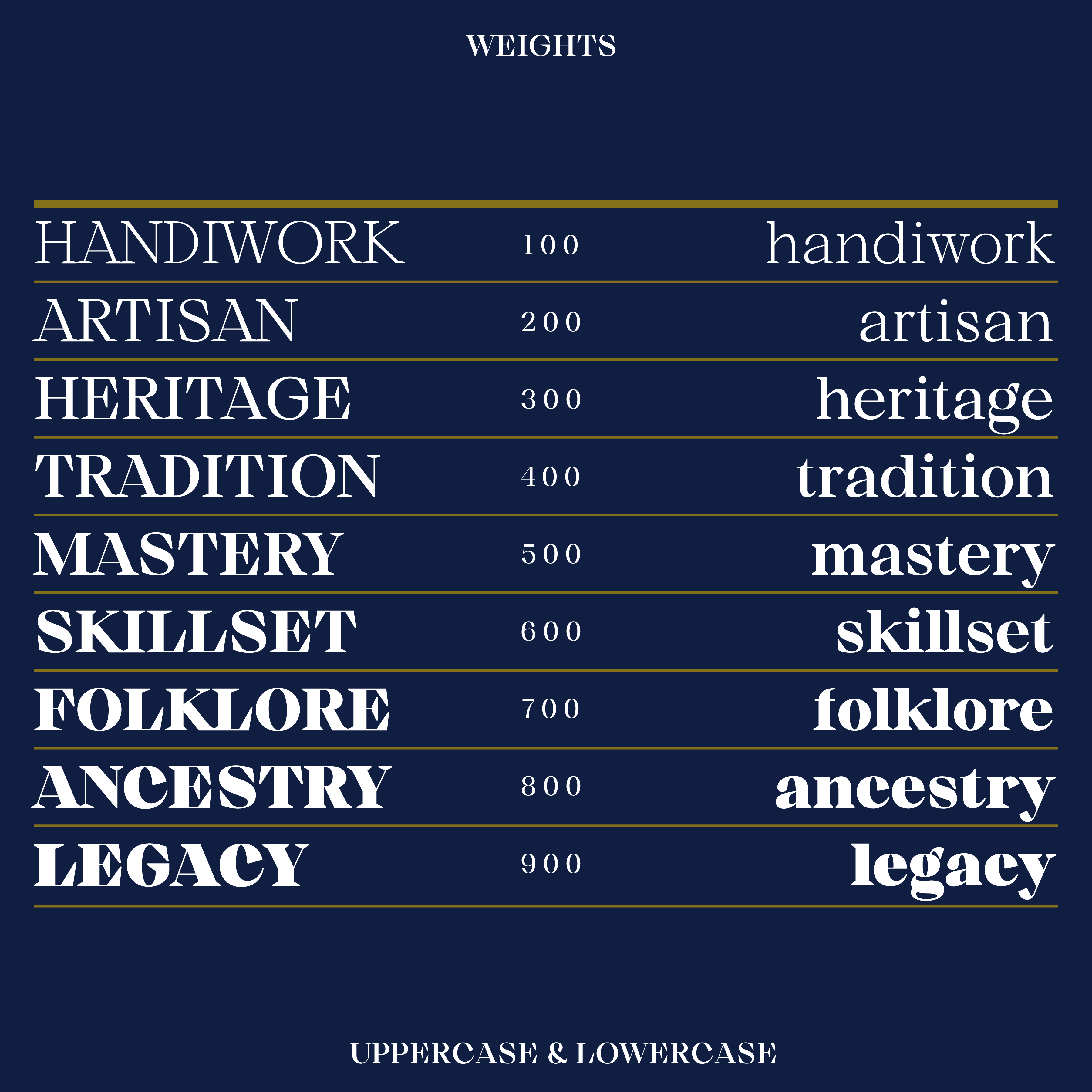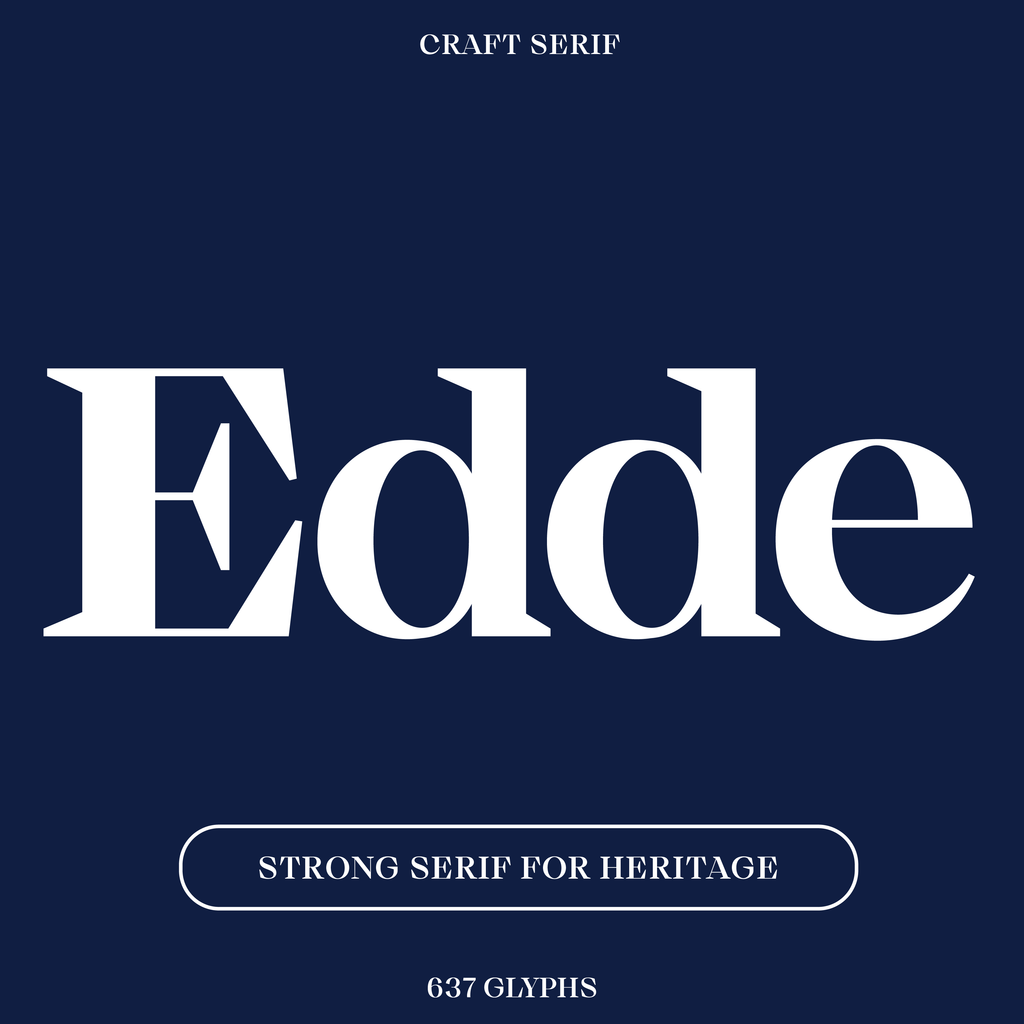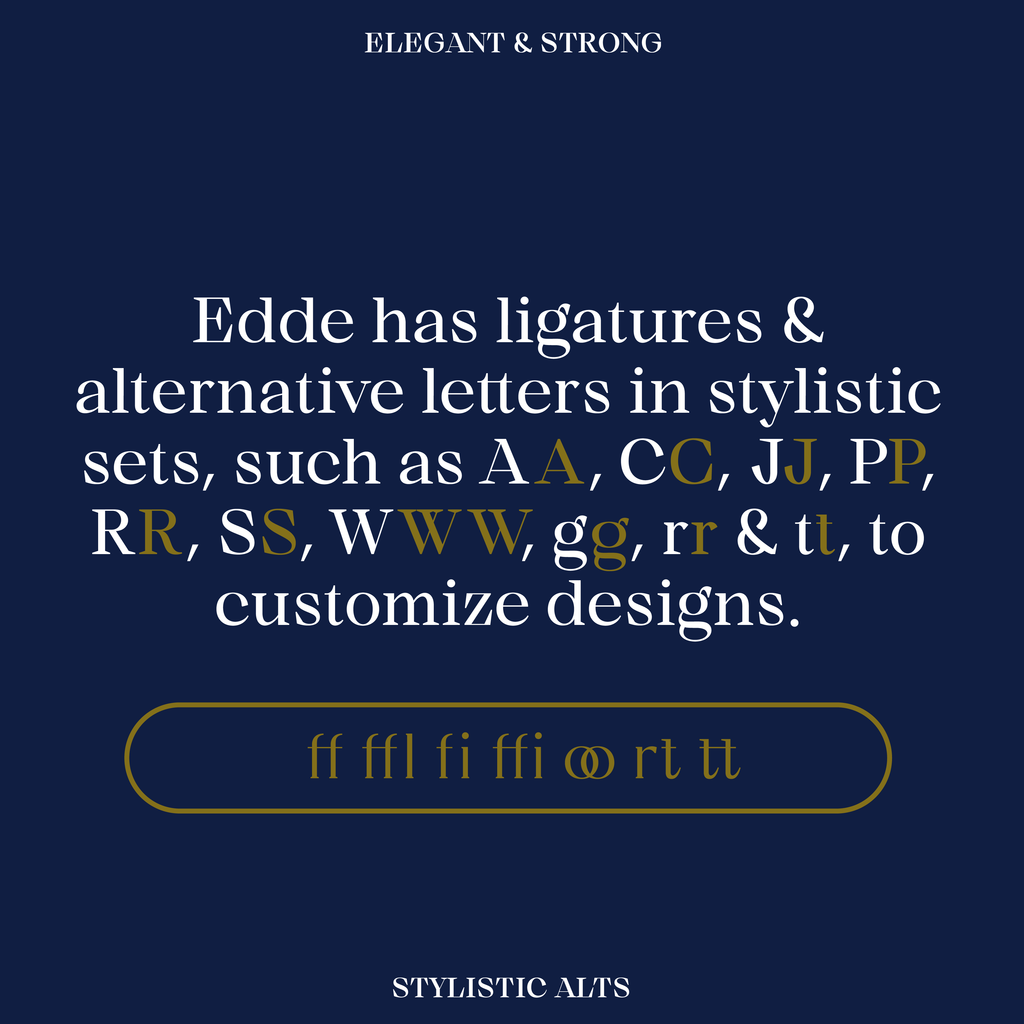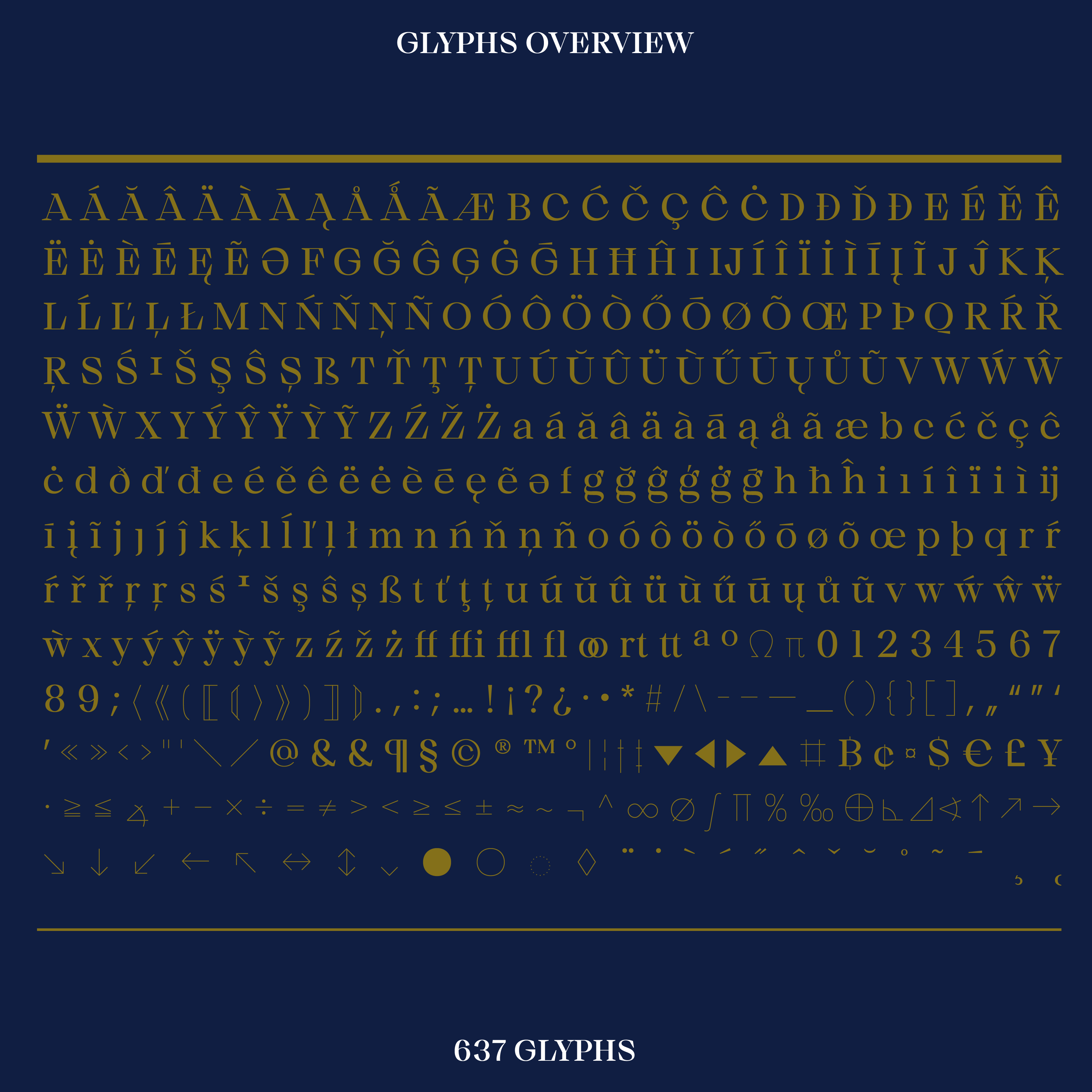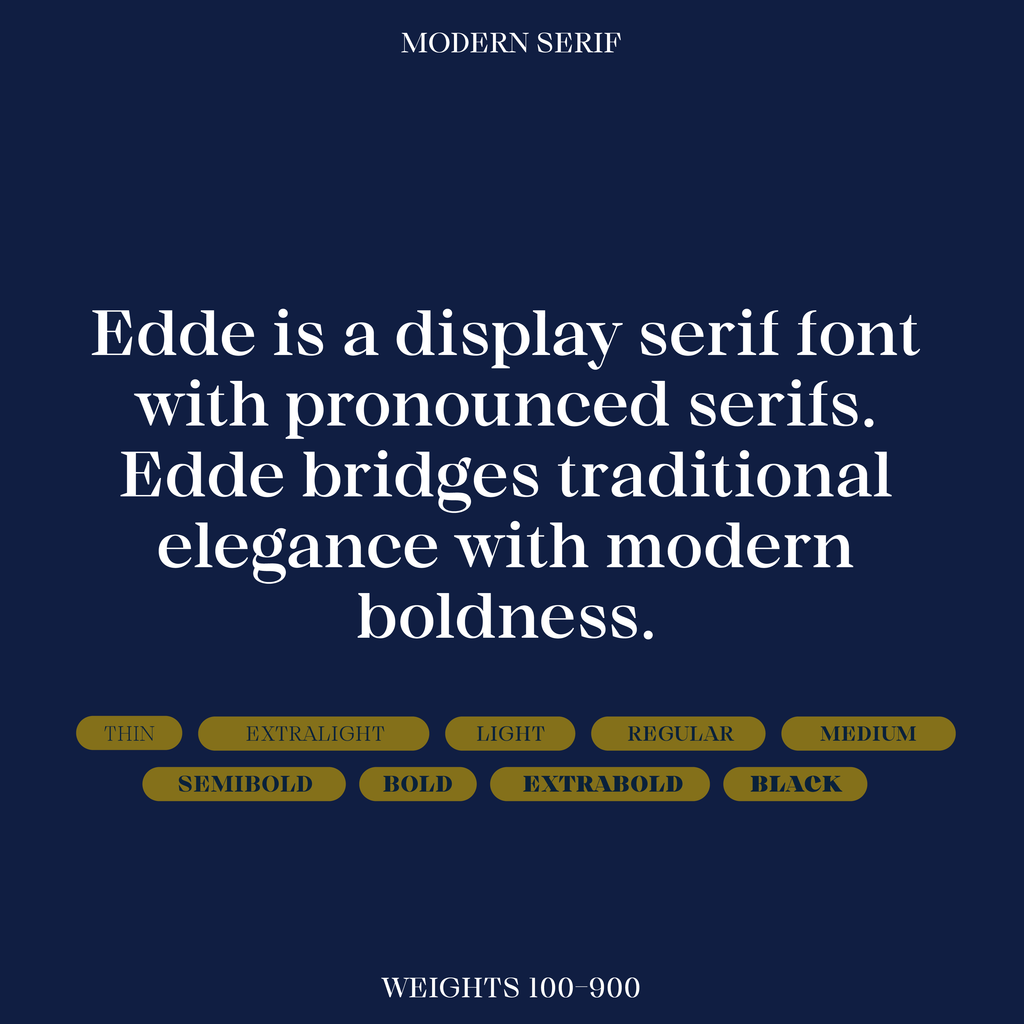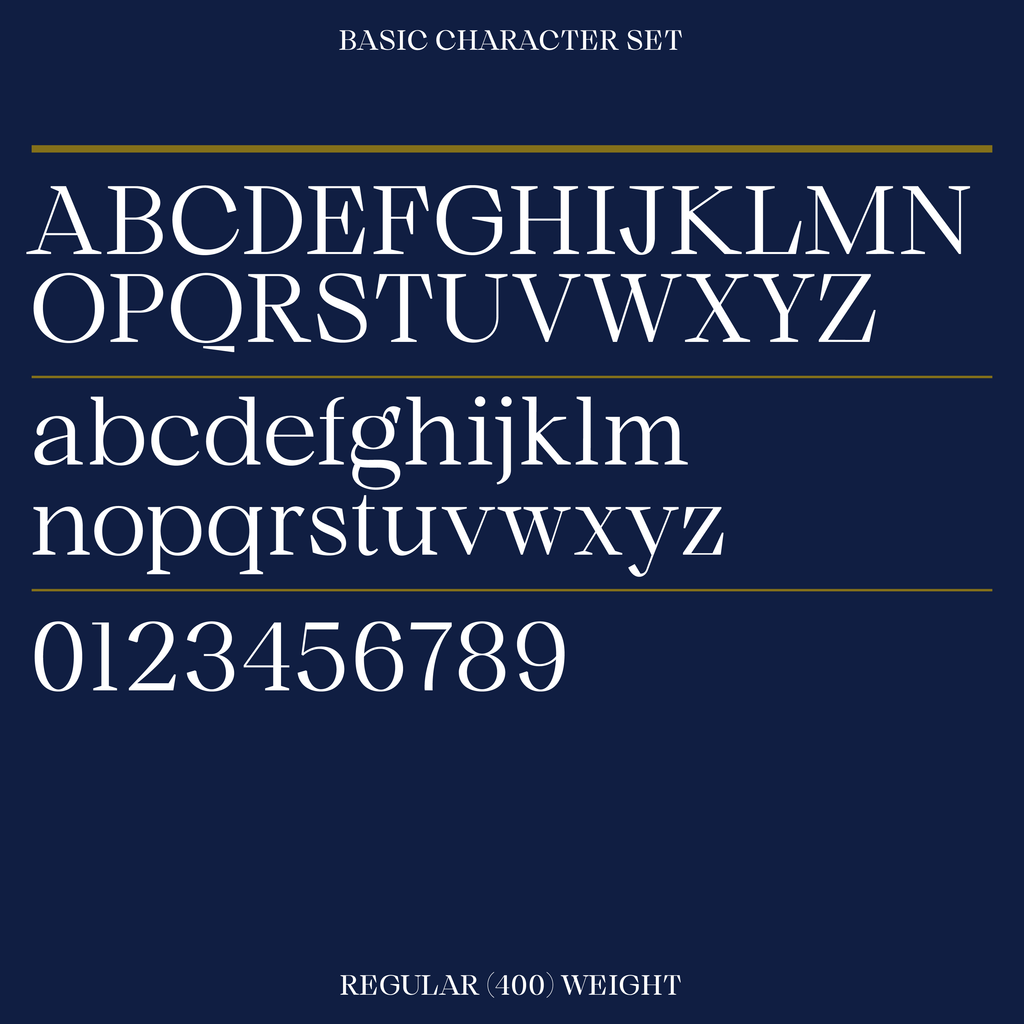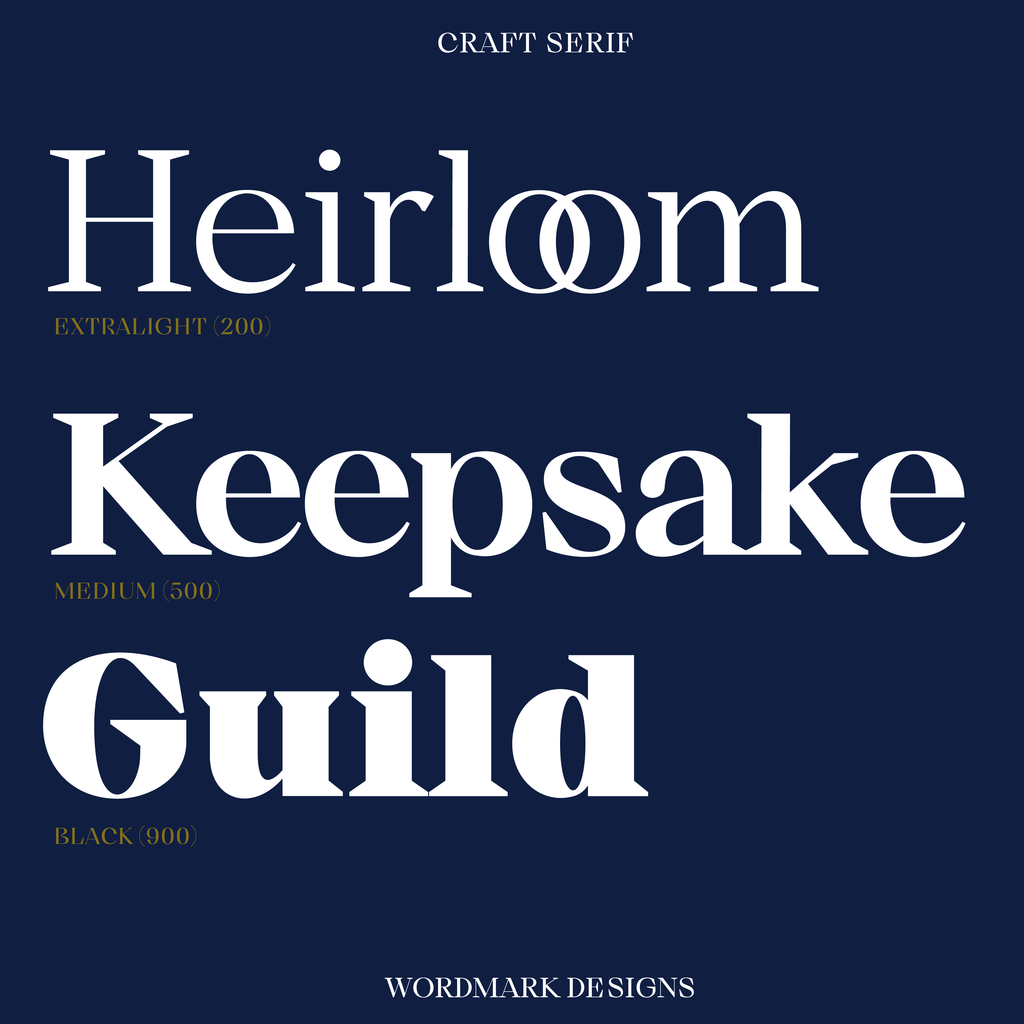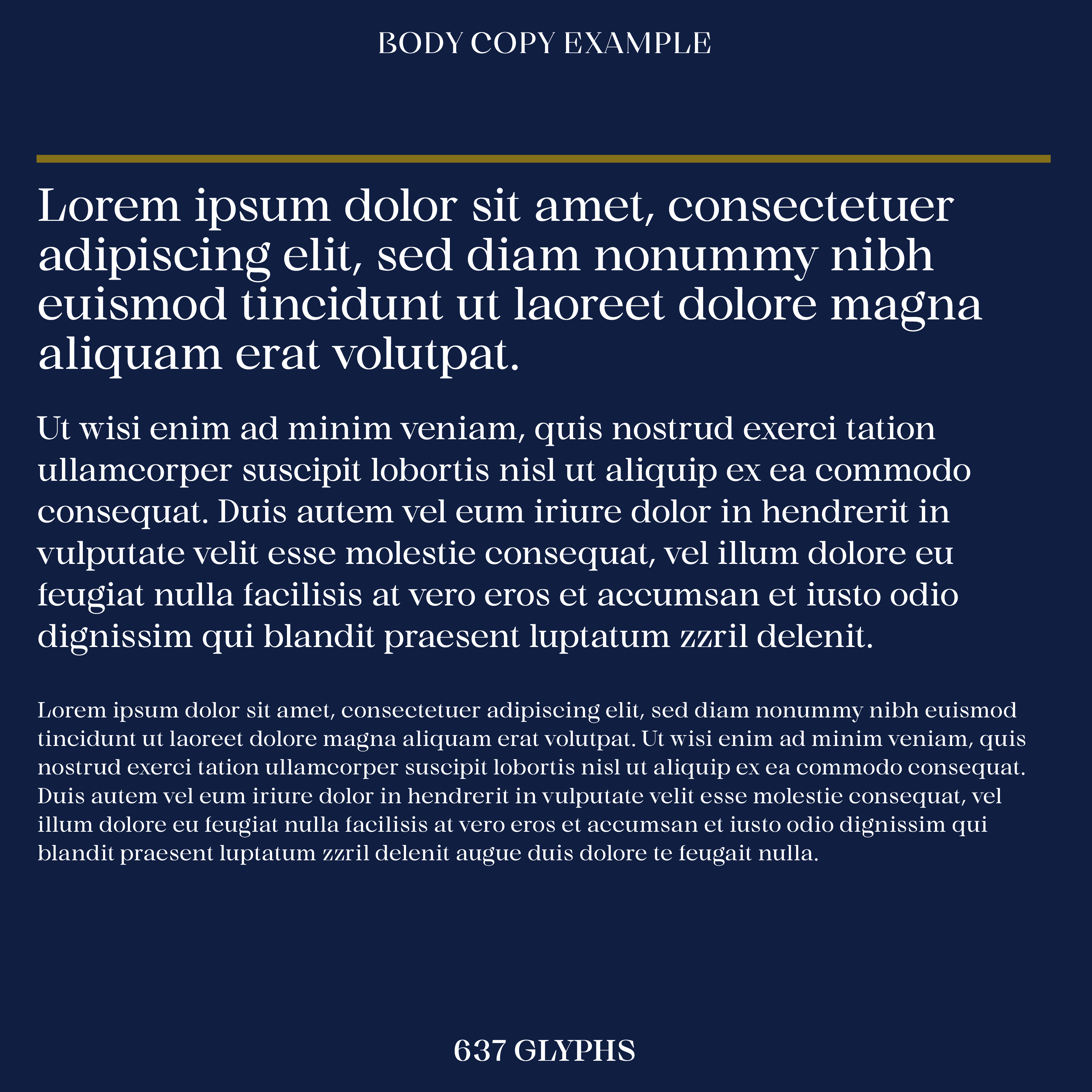
Edde—Bold serif font for craft and heritage
Say hello to Edde, a serif font for craft and heritage. With sharp, pronounced serifs, Edde combines traditional elegance with a more modern boldness. Its lighter weights refine longer text sections, while the thicker weights assert strength—perfect for titles and headlines that need to stand out. Edde’s characteristic serifs enhance readability and add personality. Edde has two or more options for glyphs A, C, J, P, R, S, W, g, r & t to customize designs. Available in nine font weights.